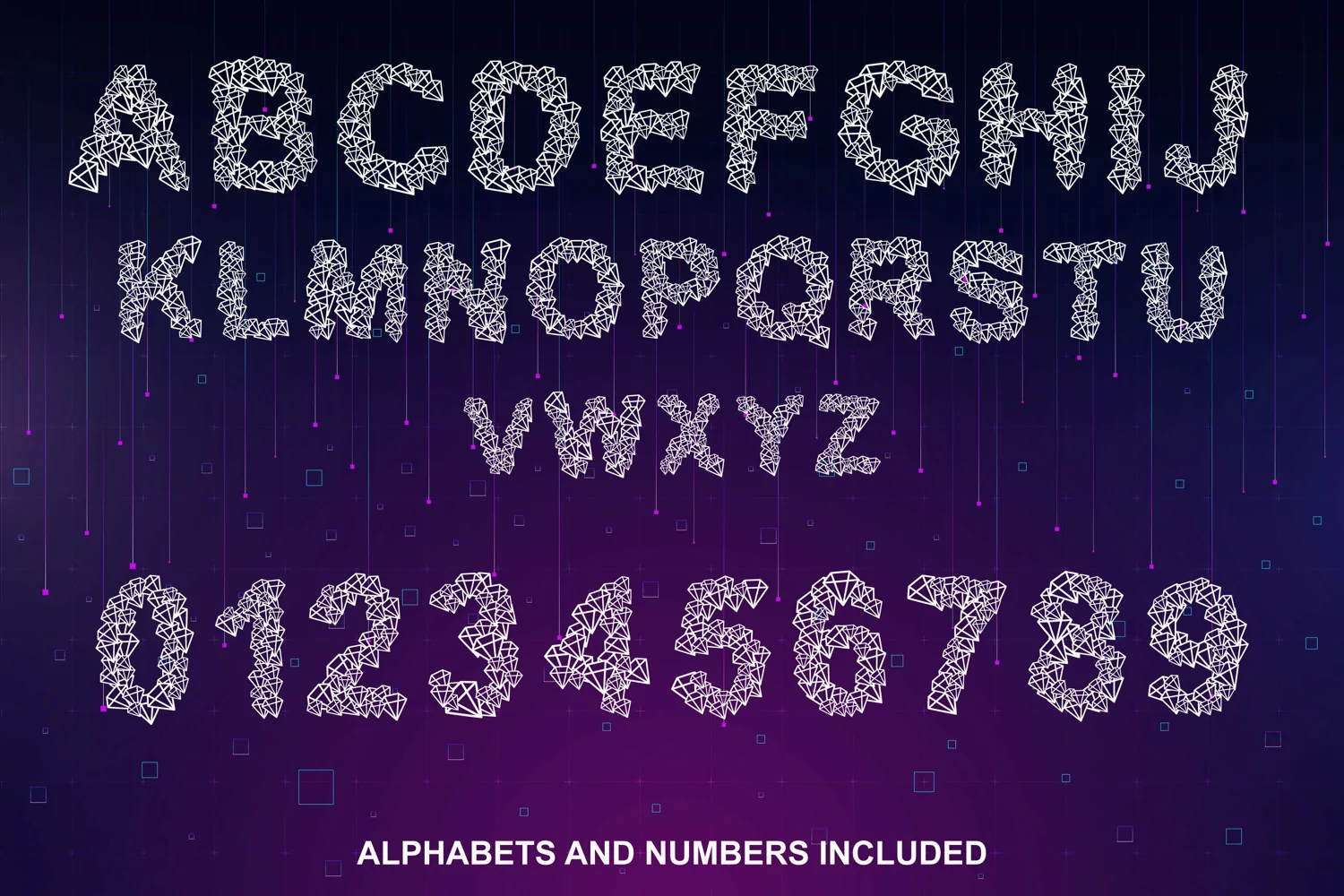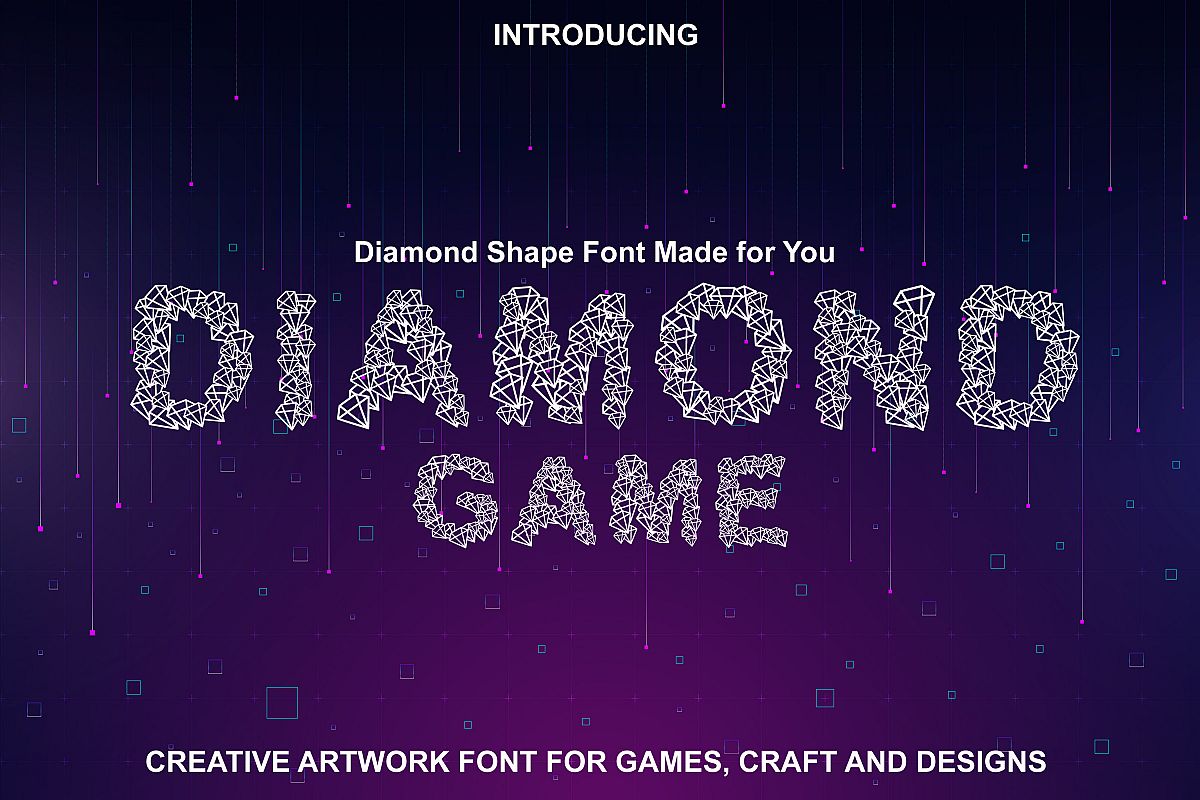
Diamond Font - Diamond Shapes Font for You
Presenting Cute font for you. This Special Paper Cut Diamond Font can be used in tons of projects sp…
Diamond Game